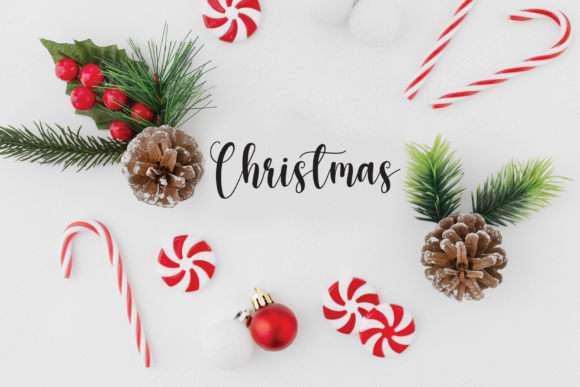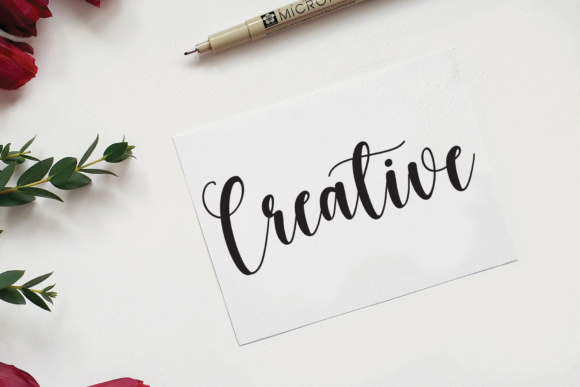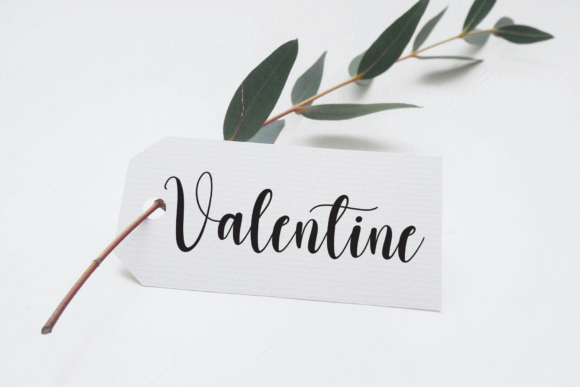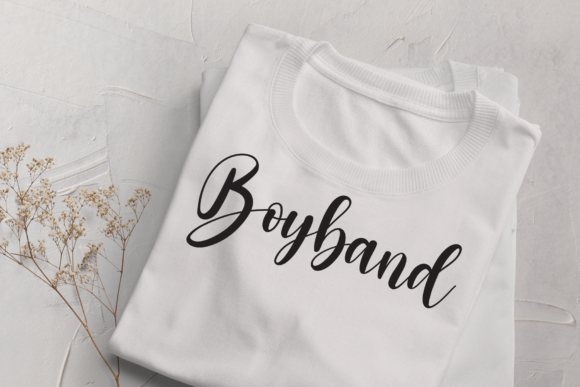
Introducing Billions Font: The Sweet and Cursive Handwritten Font for Your Design Needs
Are you a designer or crafter looking for a font that can add a touch of joy and romance to your projects? Look no further than Billions Font, a sweet and cursive handwritten font that is sure to impress. In this article, we’ll take a closer look at the features and benefits of Billions Font, and explore how it can be used to elevate your designs.
A Font that Exudes Joy and Romance
Billions Font is a gentle and elegant font that is perfect for adding a touch of whimsy and romance to your designs. Its cursive and handwritten style gives it a personal and intimate feel, making it ideal for projects that require a human touch. Whether you’re designing a wedding invitation, a greeting card, or a social media graphic, Billions Font is sure to bring a smile to your audience’s face.
Versatile and Adaptable
One of the best things about Billions Font is its versatility. It can be used on a wide range of design ideas, from elegant and sophisticated projects to more playful and creative ones. Its sweet and cursive style makes it perfect for:
- Wedding and event invitations
- Greeting cards and stationery
Easy to Read and Beautiful to Look At
Billions Font is not only aesthetically pleasing, but also easy to read and understand. Its clear and legible style makes it perfect for body text, headings, and titles. Whether you’re designing for print or digital, Billions Font is sure to deliver a great reading experience.
Perfect for Crafters and Designers
Billions Font is a great addition to any designer’s or crafter’s toolkit. Its unique and creative style makes it perfect for:
- Handmade and DIY projects
- Crafting and sewing patterns
- Digital and printable art
- Stationery and journaling
How to Use Billions Font